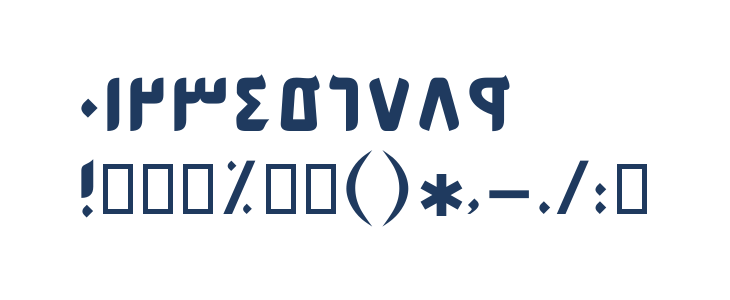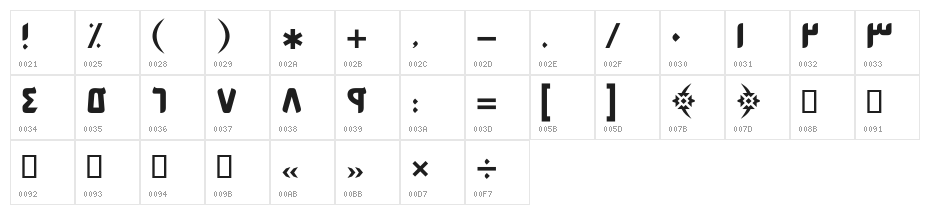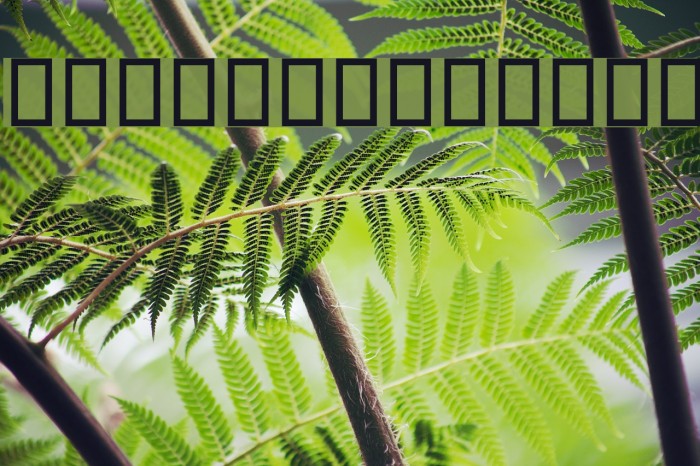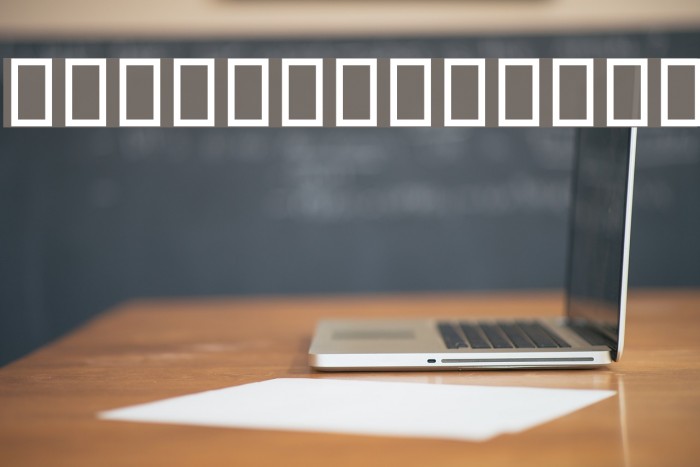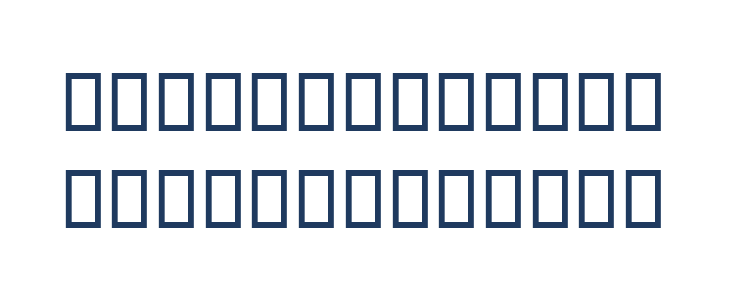
Shirin Font
Shirin Description
The font features a bold and modern design with a strong geometric influence. Its characters are well-defined with a consistent stroke width, giving it a uniform appearance. The numbers and special characters maintain the same boldness, ensuring readability and impact. This font is suitable for projects that require a contemporary and assertive look, making it ideal for headlines and branding materials. Its clean lines and structured form contribute to a professional and polished aesthetic.